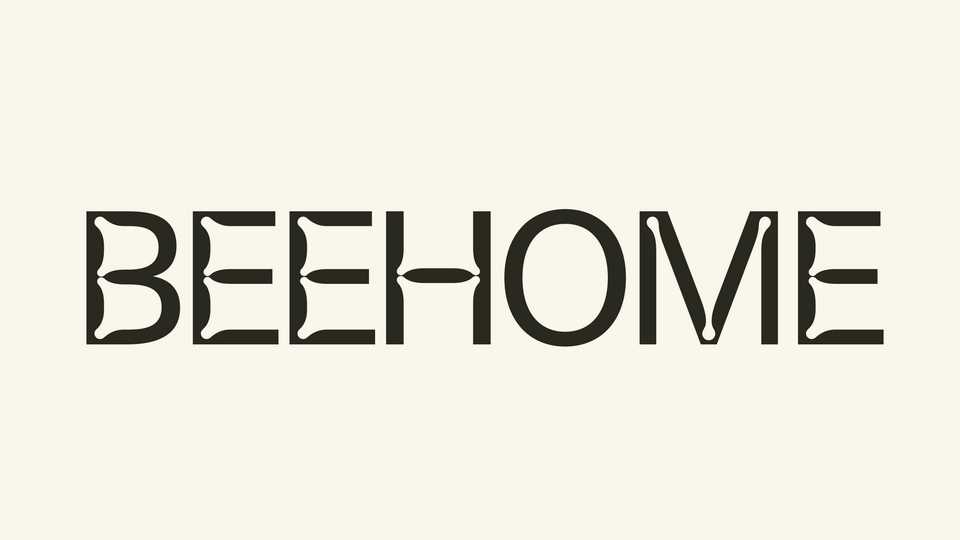
Download S10 Beehome font, a display typeface for the S10 Bee Home project. The font has an unusual shape of the inner corners of the characters, which creates contrast and a unique appearance.
Designer: Bakken & Bæck